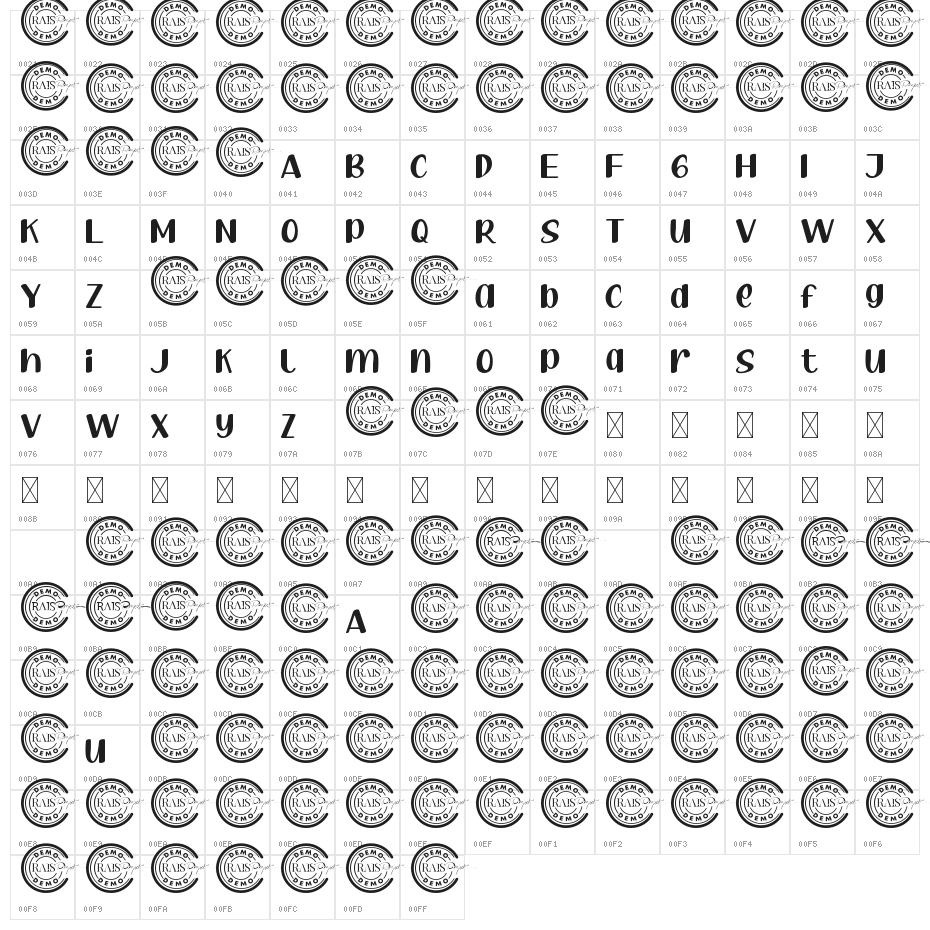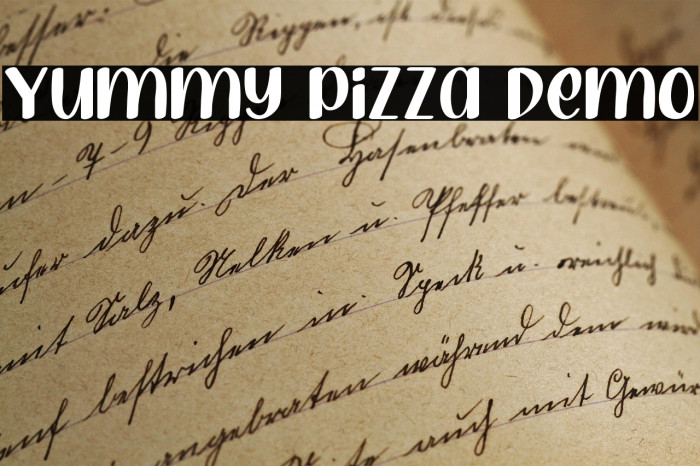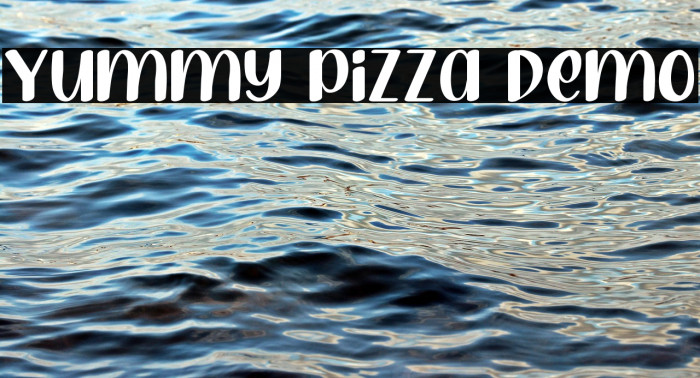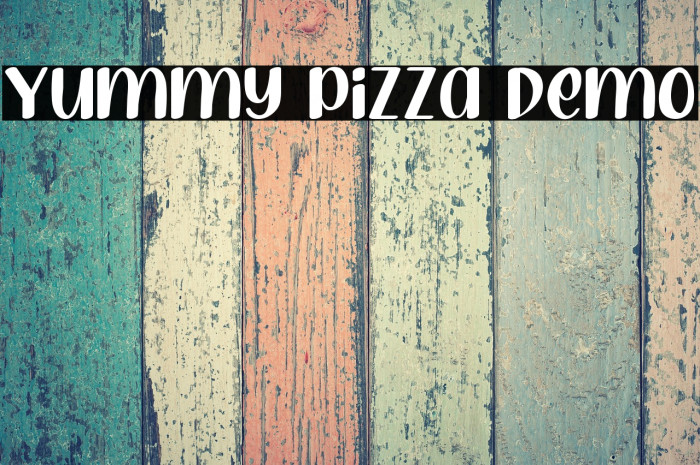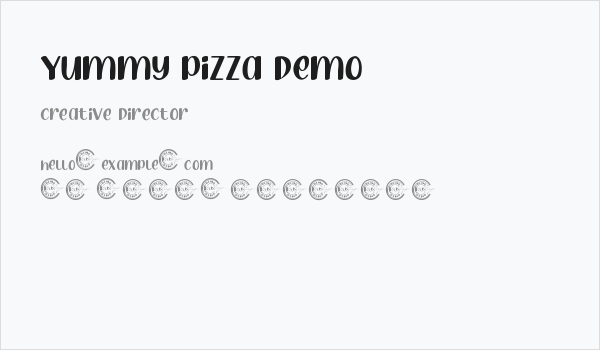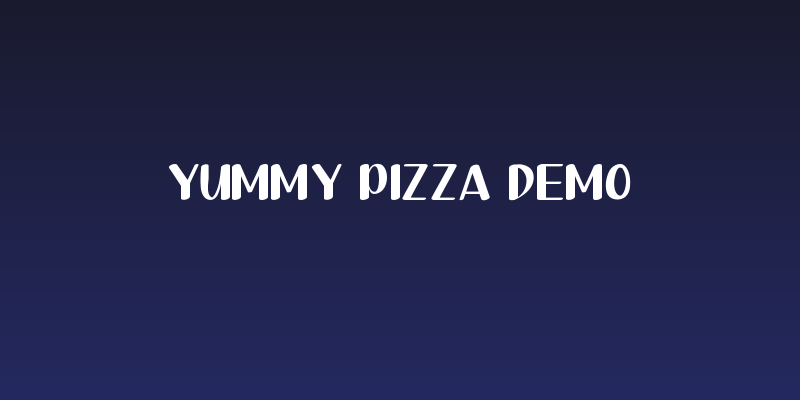
Yummy Pizza Demo Font
Yummy Pizza Demo Description
This font features a playful and bold style, characterized by its thick, rounded strokes and whimsical curves. The uppercase letters are robust and slightly condensed, giving a strong presence, while the lowercase letters maintain a consistent flow with a touch of flair in their design. The numbers are equally bold, ensuring readability and consistency across different uses. Special characters are designed to match the overall playful aesthetic, making them suitable for creative projects. The font's unique style makes it ideal for eye-catching designs, adding a fun and lively touch to any project.
| Overall Style | Playful, Fun |
| Proposed Projects | Ideal for children's books, playful branding, posters, and creative advertising. |